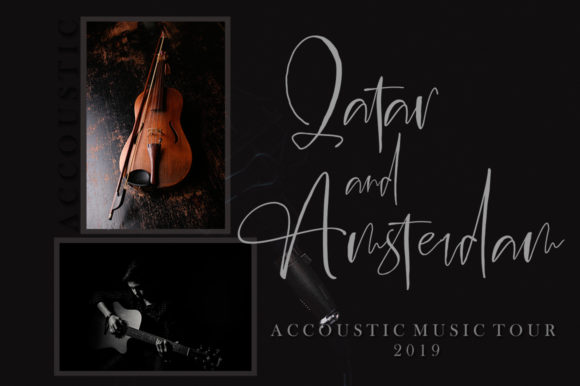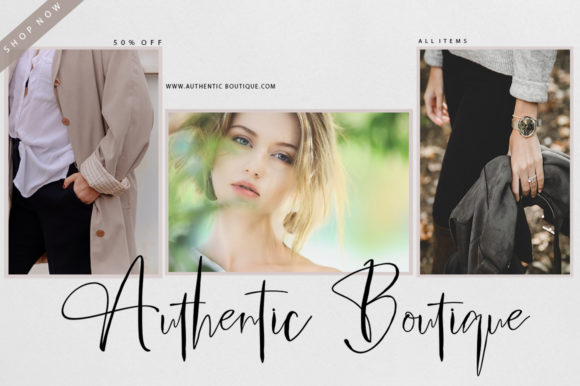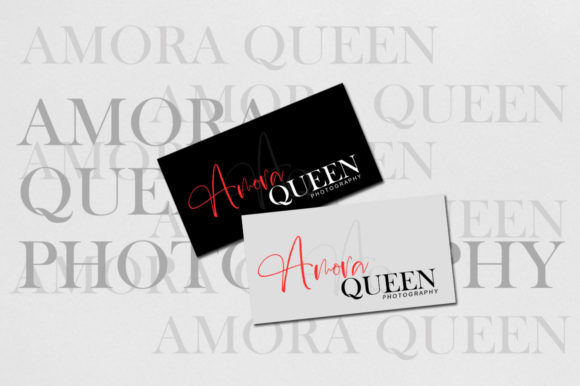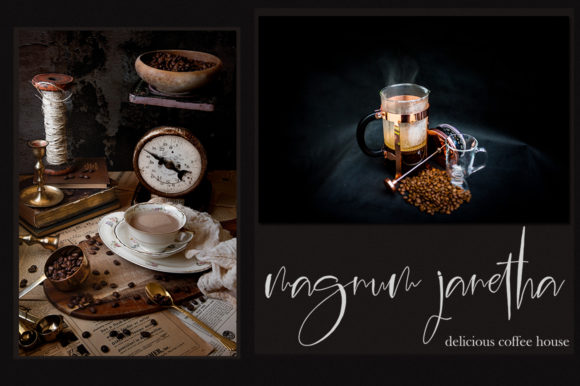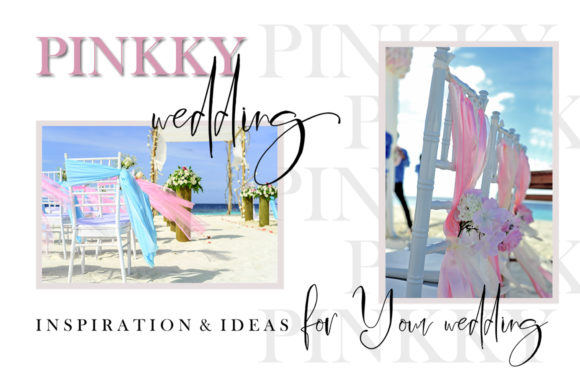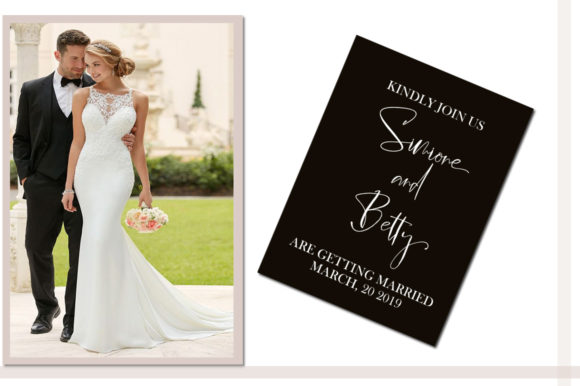
Introducing Amstrong Script Font: Elevate Your Designs with Elegance
Are you looking for a font that exudes sophistication and elegance? Look no further than the Amstrong Script Font. This stunning signature script is a classic thin font with an italic style, perfect for adding a touch of luxury to your designs. In this article, we’ll explore the features and benefits of the Amstrong Script Font and how it can elevate your designs to the next level.
What is Amstrong Script Font?
The Amstrong Script Font is a beautiful, hand-crafted script font that features elegant, cursive lettering. Its thin lines and italic style give it a classic, sophisticated look that’s perfect for a variety of design projects. Whether you’re working on a logo, branding project, or marketing materials, the Amstrong Script Font is sure to make a statement.
Key Features of Amstrong Script Font
- Classic Thin Font: The Amstrong Script Font features a thin, elegant font style that’s perfect for adding a touch of sophistication to your designs.
- Italic Style: The font’s italic style gives it a dynamic, cursive look that’s perfect for creating visually appealing designs.
- Signature Script: The Amstrong Script Font is a signature script font, making it perfect for creating elegant, high-end designs.
- Highly Versatile: This font is perfect for a wide range of design projects, including logos, branding projects, product packaging, and more.
Uses for Amstrong Script Font
The Amstrong Script Font is incredibly versatile and can be used for a wide range of design projects, including:
- Logos: Create a stunning logo for your business or brand with the Amstrong Script Font.
- Branding Projects: Use the font to create a cohesive brand identity that exudes elegance and sophistication.
- Product Packaging: Add a touch of luxury to your product packaging with the Amstrong Script Font.
- Mugs: Create beautiful, one-of-a-kind mug designs with this elegant font.
- Quotes: Use the font to create inspiring and visually appealing quotes.
- Posters: Create stunning posters for events, promotions, or advertising campaigns.
- Shopping Bags: Add a touch of elegance to your shopping bags with the Amstrong Script Font.
- T-Shirts: Create beautiful, unique t-shirt designs with this versatile font.
- Book Covers: Use the font to create eye-catching book covers that stand out.
- Business Cards: Create elegant, professional business cards with the Amstrong Script Font.
- Invitation Cards: Use the font to create beautiful, sophisticated invitation cards.
- Greeting Cards: Create stunning greeting cards for special occasions with this elegant font.
Why Choose Amstrong Script Font?
There are many script fonts available, but the Amstrong Script Font stands out for several reasons:
- Elegant Design: The font’s elegant design makes it perfect for creating high-end designs.
- Highly Versatile: The font can be used for a wide range of design projects, making it a great addition to any designer’s toolkit.
- Easy to Read: Despite its thin lines, the font is easy to read, making it perfect for body text and headings.
- Unique Style: The font’s unique style sets it apart from other script fonts, making it a great choice for designers looking to create something distinctive.
| Font Name | Amstrong Script Font |
The Amstrong Script Font is a stunning, elegant font that’s perfect for adding a touch of sophistication to your designs. Its classic thin font style, italic style, and signature script make it a versatile font that can be used for a wide range of design projects. Whether you’re a designer, craft, or DIY enthusiast, the Amstrong Script Font is a great addition to your toolkit. So why wait? Download the Amstrong Script Font today and start creating beautiful, elegant designs that stand out.